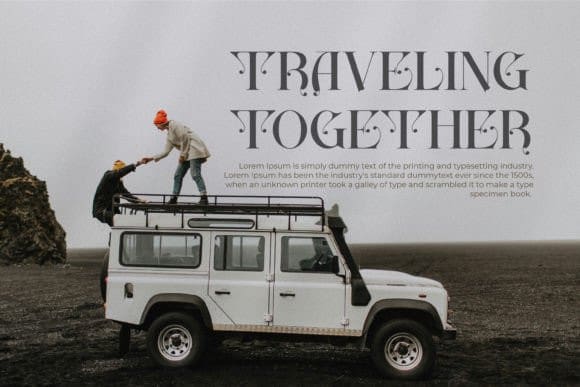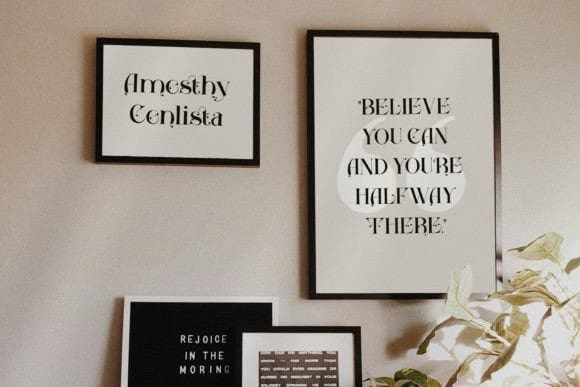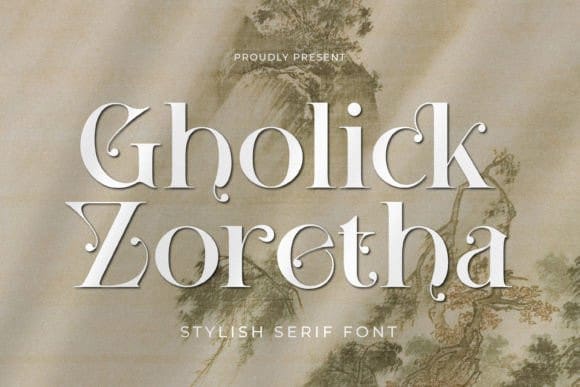
Gholick Zoretha Font
Gholick Zoretha Font is a modern, stylish serif font that commands attention with its refined lines and sleek curves. Its sophisticated presence lends an air of elegance to any design project, from editorial layouts to branding materials. Perfect for conveying professionalism and contemporary aesthetics in various creative endeavors.